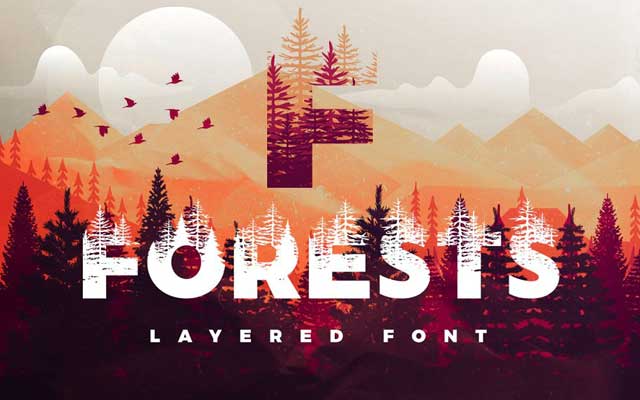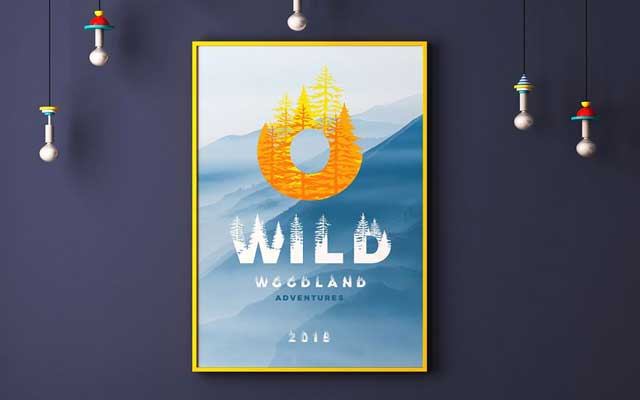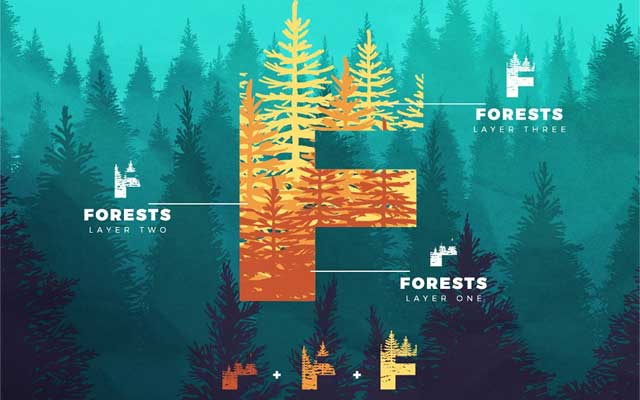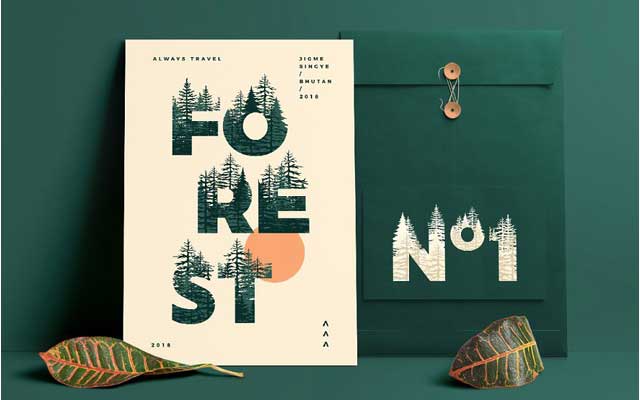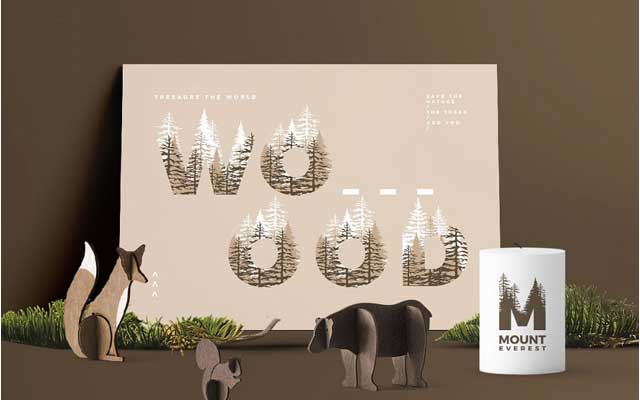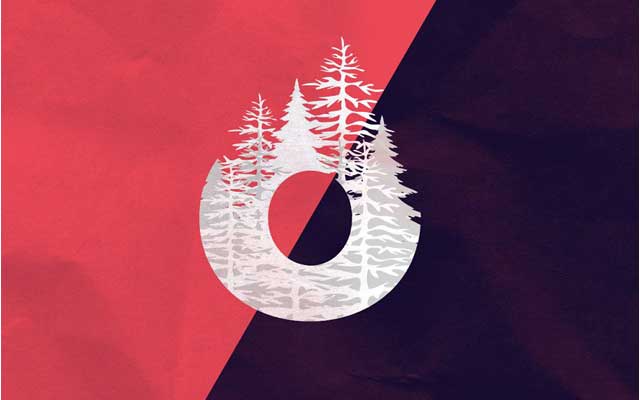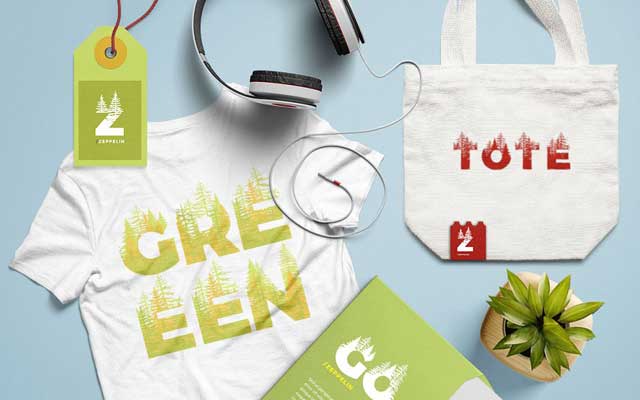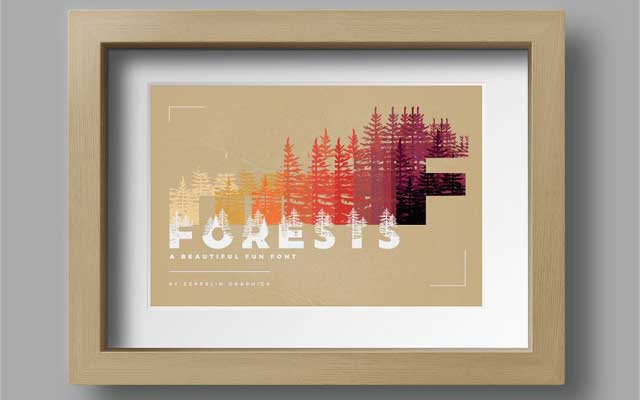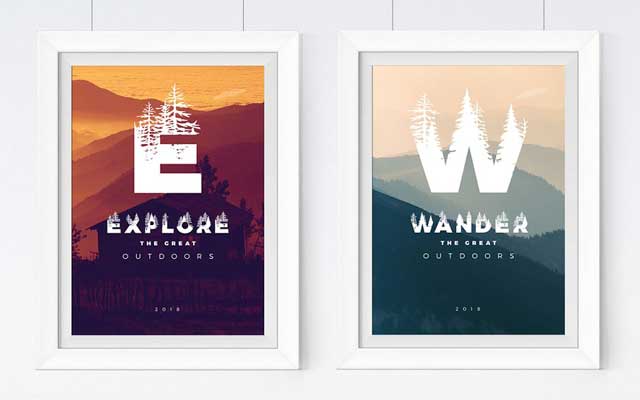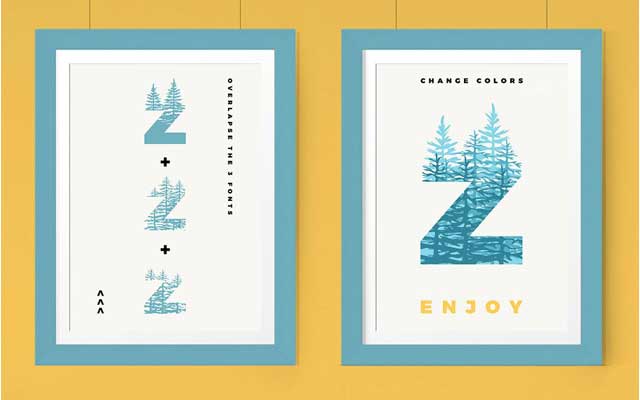
Forests Layered Font
Forests Is a double exposure font that consists of 3 layers and it includes letters and numerals. It is a display type and works especially great on prints.
It is very easy to use. Write with all 3 layers, 2 layers or just 1, change the color of each layer to get different effects and illustrations. Make sure to always type with CAPS on. The font has only uppercase letters and numbers and lowercase won’t work.
Features Of Forests Layered Font:
• Letters & numerals
• This font has no punctuation or multilingual support.